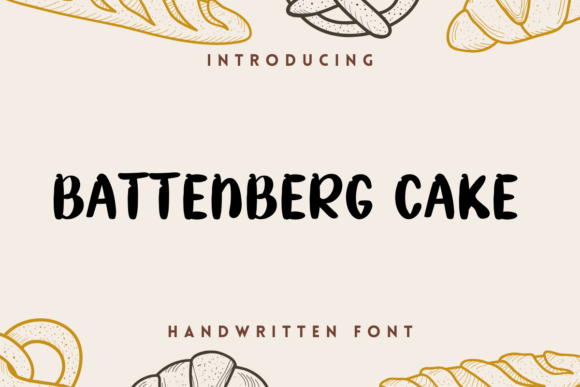
Journey into the realm of exceptional typography with the Batternbern Cake Font, a mesmerizing creation by perkasyabayu. This script font family epitomizes elegance and charm, captivating your audience with its hand-crafted strokes and enchanting details. Batternbern Cake is the perfect font for modern websites, adding a touch of whimsy and sophistication to your digital presence.
Unleash your creativity with Batternbern Cake's boundless versatility. Whether you're designing branding materials, logotypes, magazines, or crafting heartfelt wedding invitations, this font will elevate your designs to new heights. Its playful, slightly chunky shape, accentuated by intricate edge cuts, ensures that your messages stand out with a distinct personality.
Experience the joy of effortless readability with Batternbern Cake. Its carefully crafted characters are designed to enhance the user experience, ensuring that your content is easily digestible and visually appealing. Whether you're captivating readers with captivating articles, presenting information in brochures, or sharing heartfelt messages on social media, Batternbern Cake will make your words shine.
Don't settle for ordinary when you can embrace the extraordinary. Batternbern Cake is the key to unlocking a world of design possibilities, inviting you to create visuals that resonate with your audience. From eye-catching headlines to captivating logos, this font will transform your creative visions into unforgettable masterpieces.
Seize the opportunity to elevate your designs with Batternbern Cake. Let its unique charm work its magic, leaving a lasting impression on your audience. Embrace the power of this hand-crafted font and unlock a world of creative possibilities that will leave them spellbound.